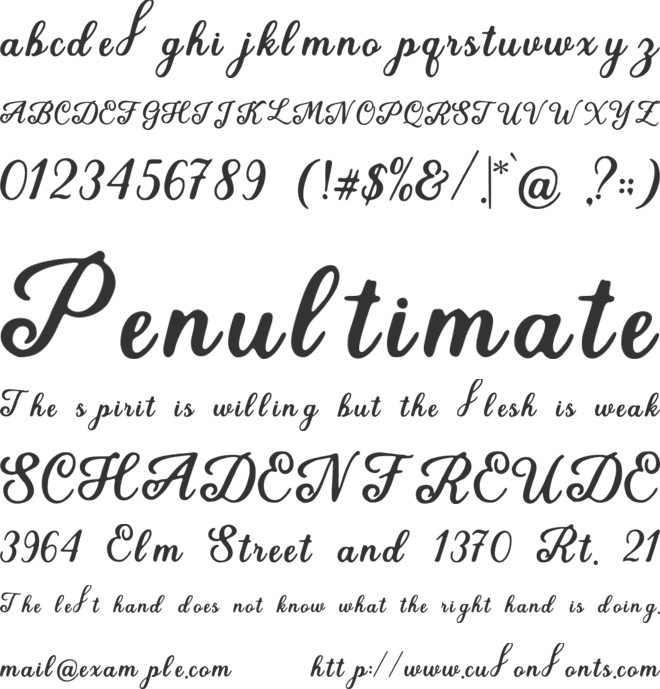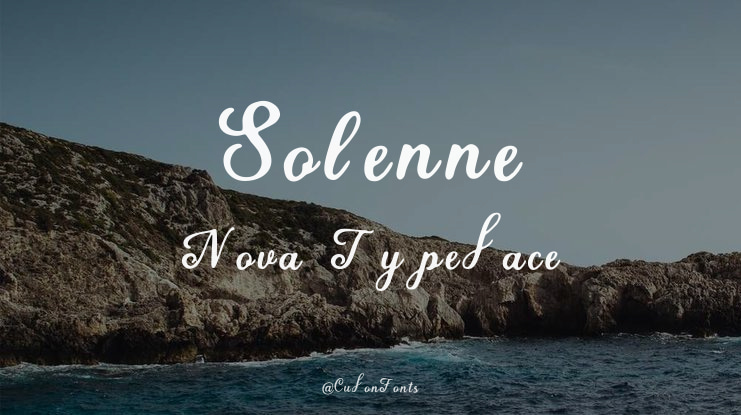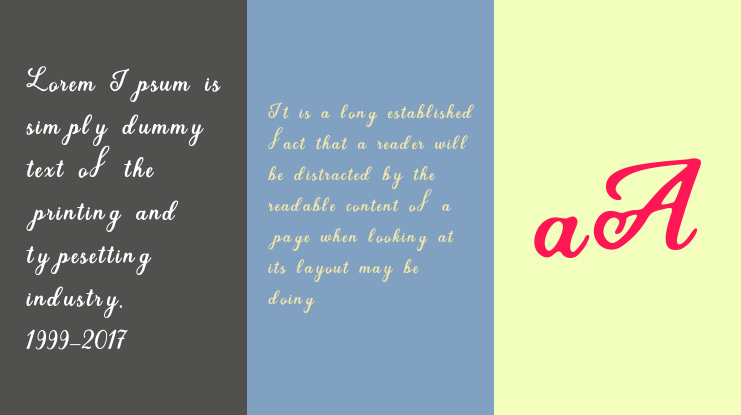
Solenne Nova Font
Solenne Nova is a sophisticated typeface that blends classic elegance with contemporary finesse. Featuring smooth curves, balanced proportions, and a refined presence, it is designed for those who seek timeless beauty in their typography. With its delicate yet confident letterforms, Solenne Nova is perfect for luxury branding, editorial design, high-end packaging, and fine stationery. Whether used for headlines, invitations, or logotypes, this font brings a touch of poise and sophistication to any project.